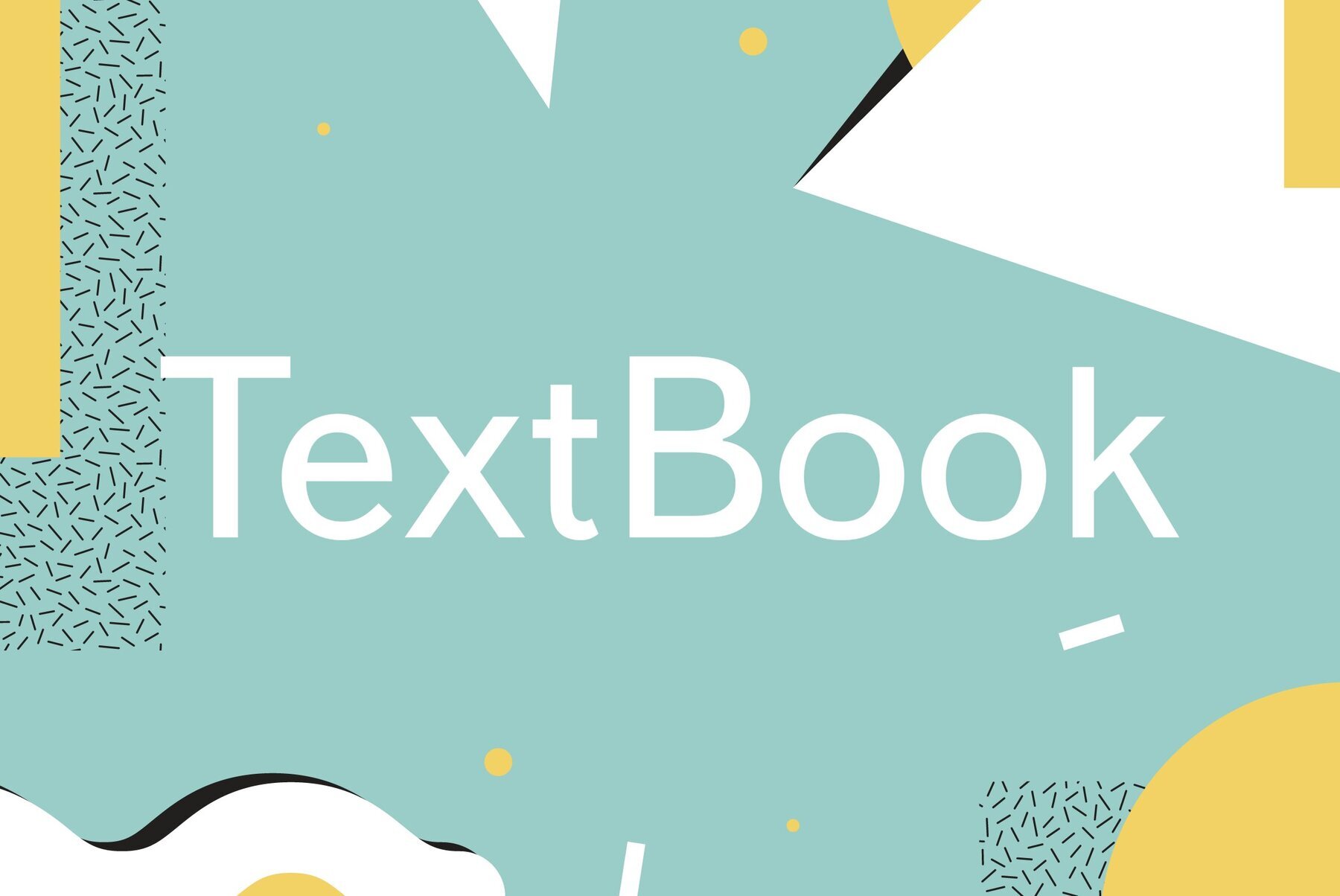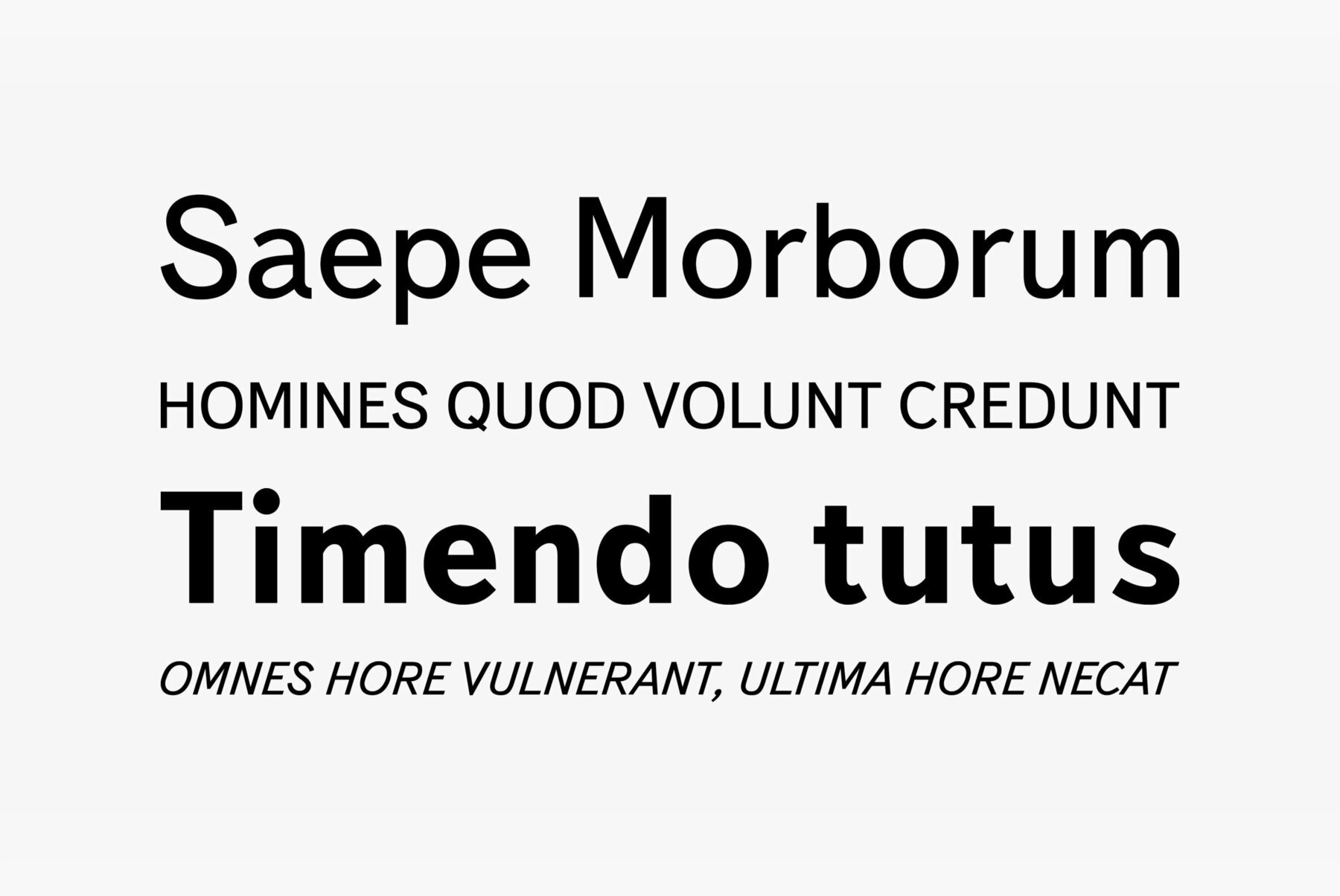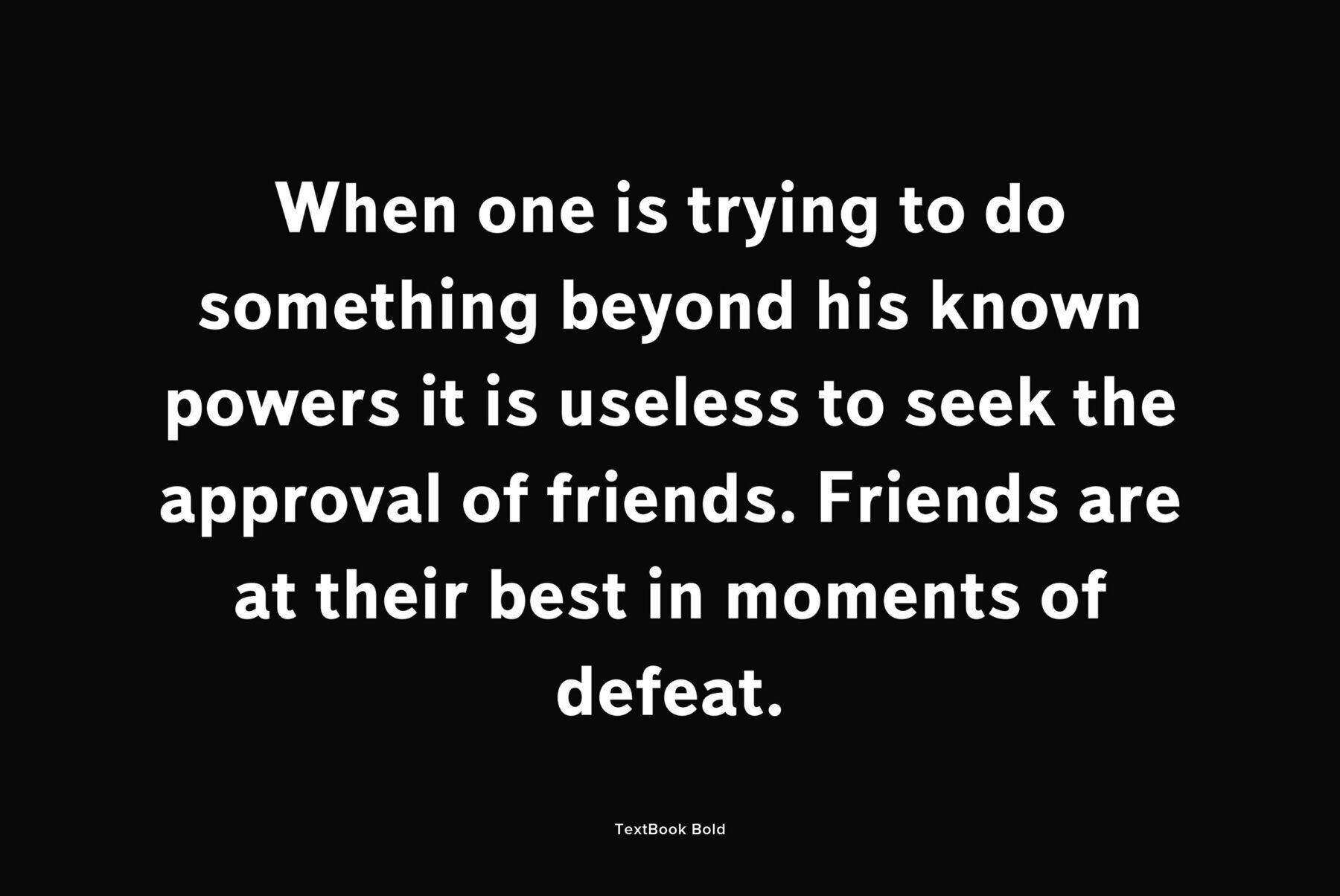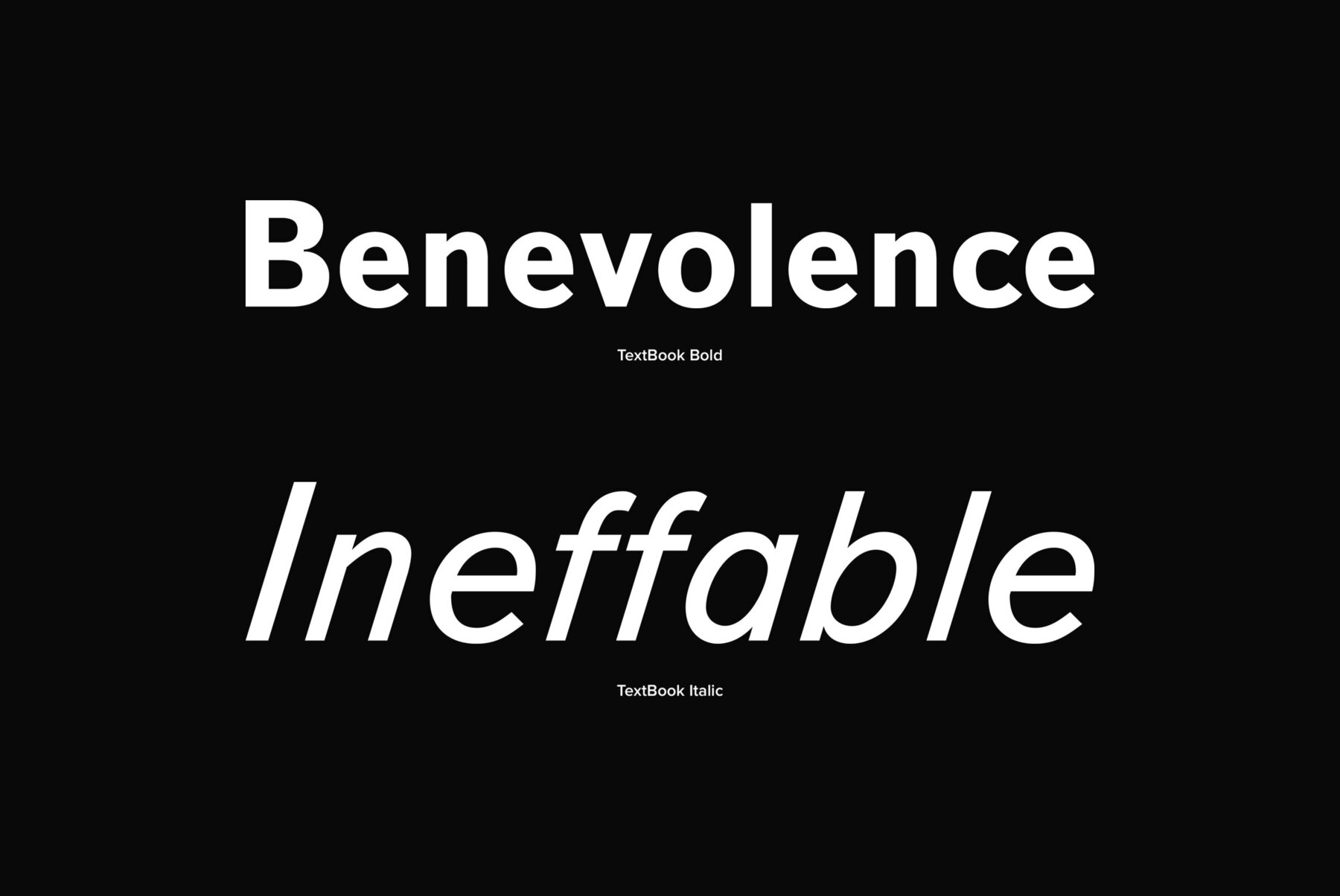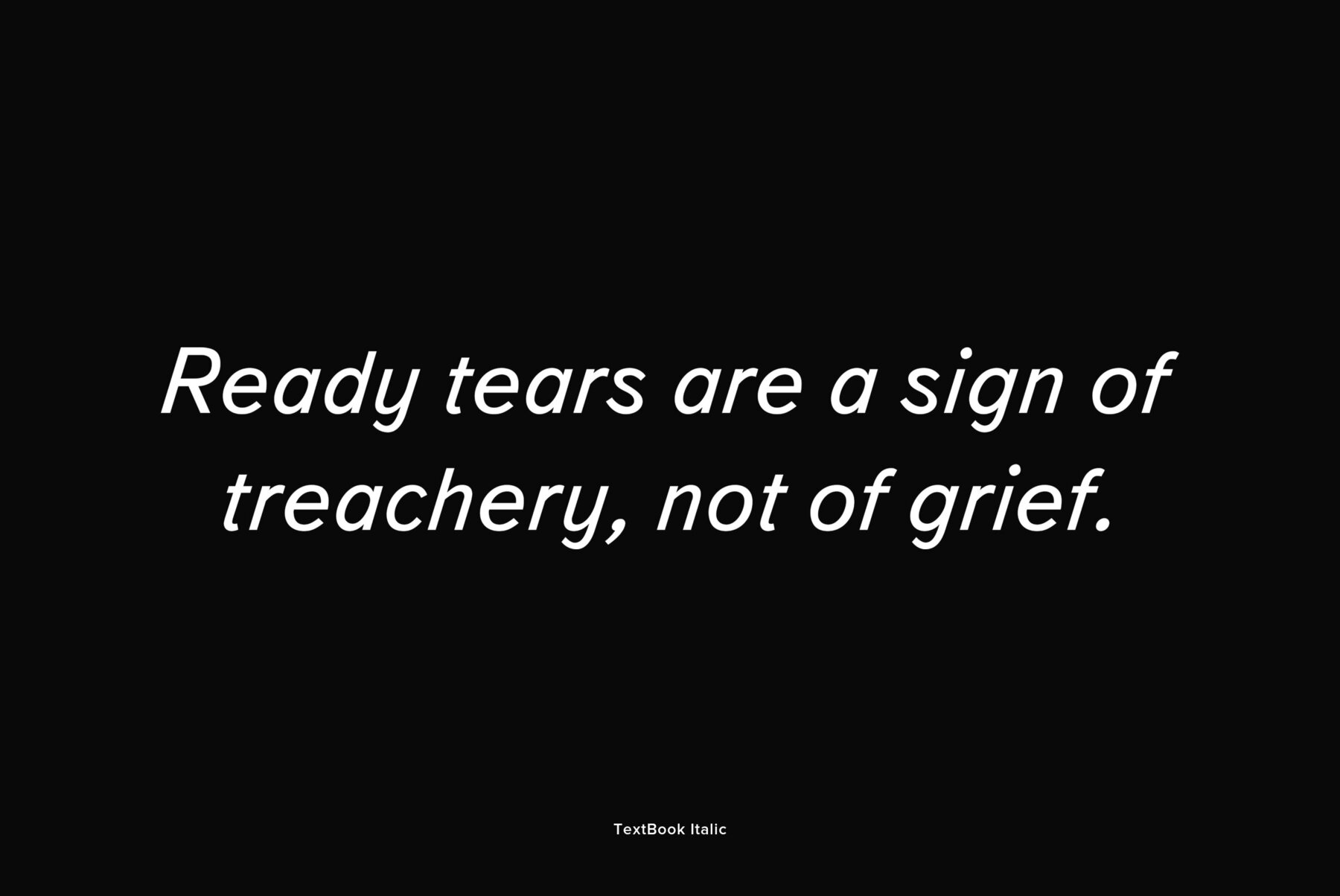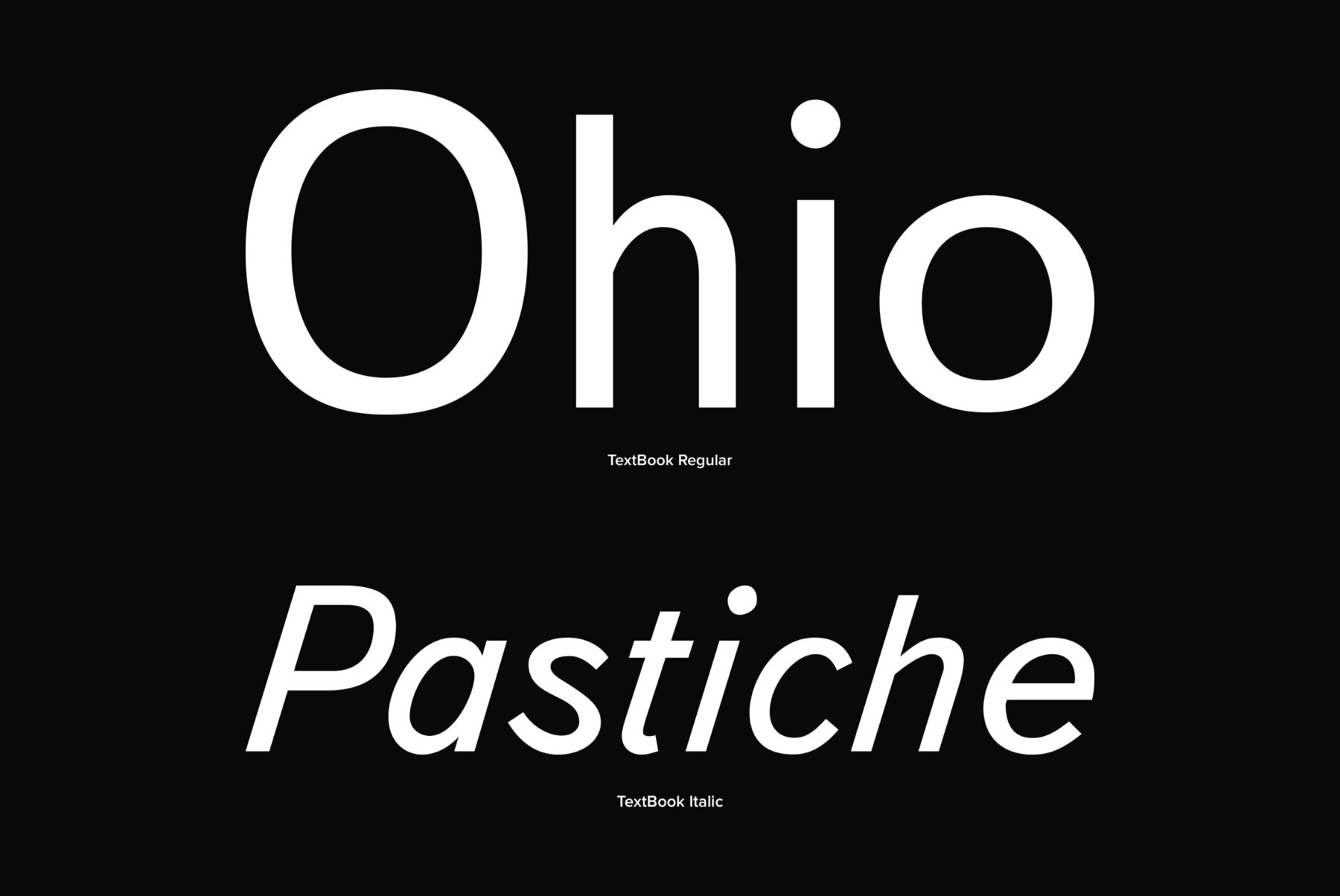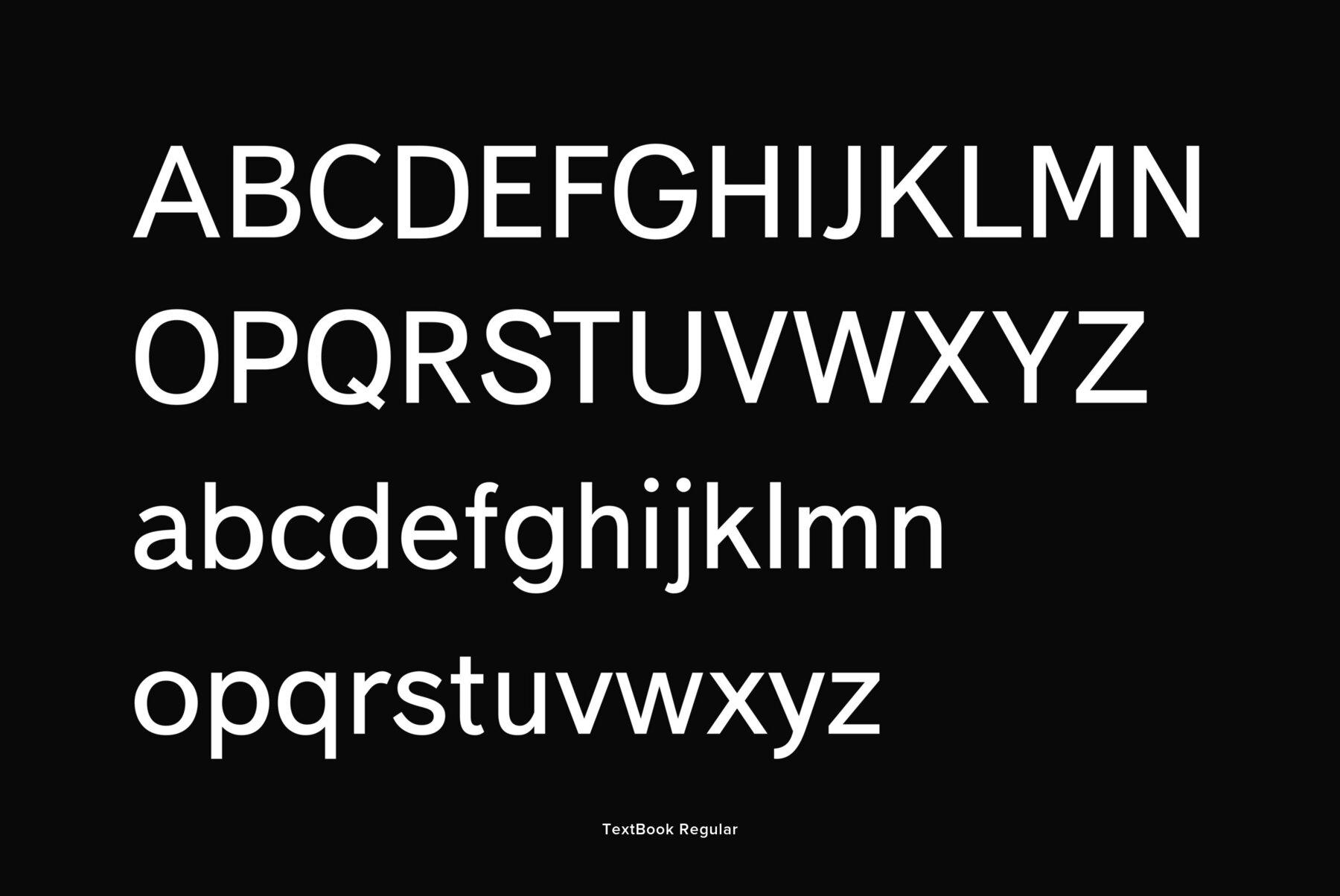
Designed at Polygraphmash in 1958 by Elena Tsaregorodtseva; Latin characters and italic were added in 1987 by Emma Zakharova. An early sans serif ('Grotesque'), it was developed for primers and the first level school textbooks.